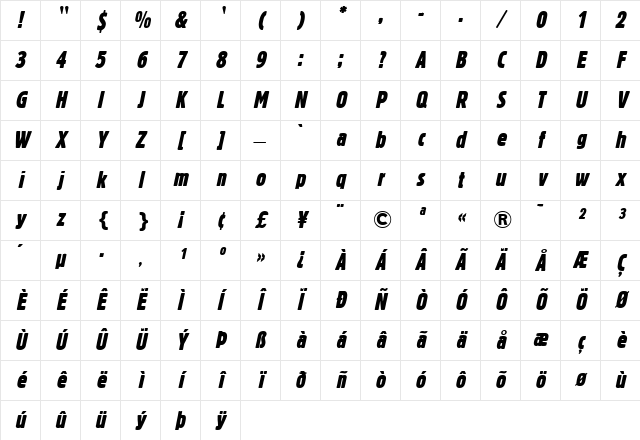
Complete BlockBE ExtraCnIt glyph index. Displaying only characters natively supported by BlockBE ExtraCnIt font.
BlockBE is a composed and adaptable typeface that performs quietly and consistently across a wide range of design contexts.